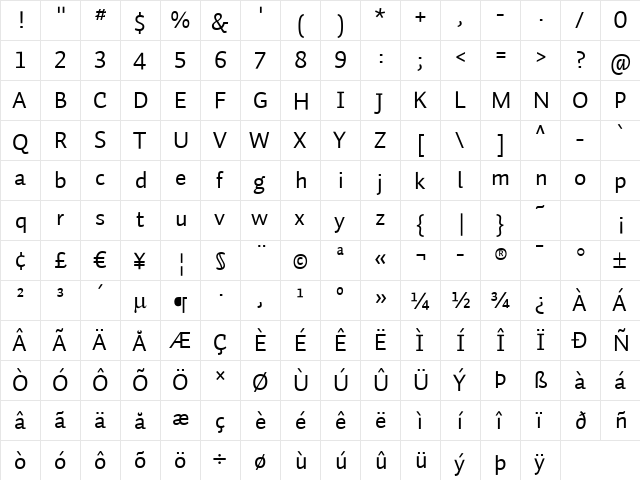
Auto 3 Regular LF Font Preview
Auto 3 Regular LF
Auto 3 Regular LF Font Details
| Style | Regular LF |
Design Context for Auto 3 Typeface
Auto 3 is a composed and adaptable typeface that performs quietly and consistently across a wide range of design contexts.